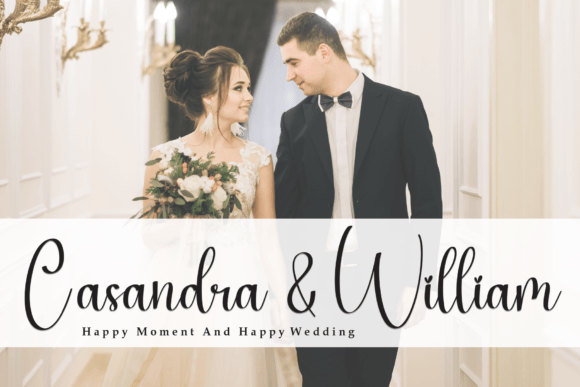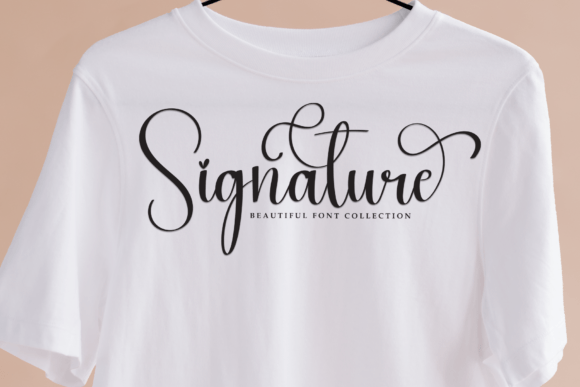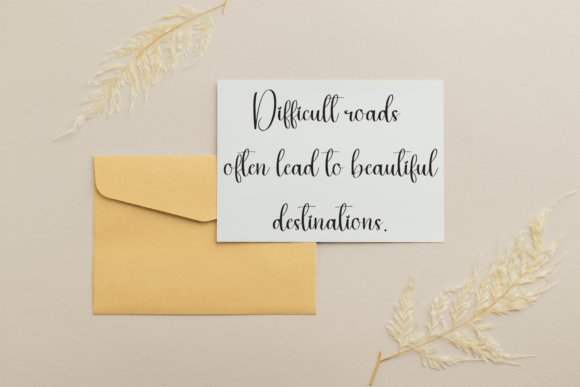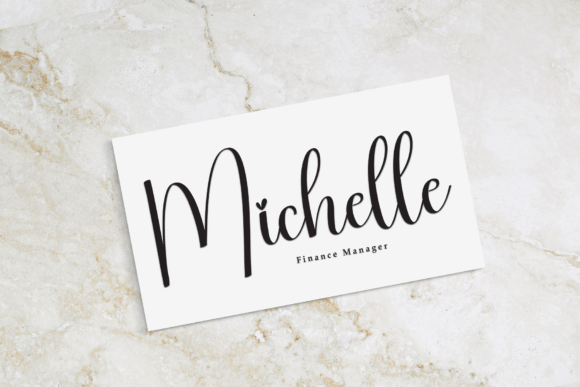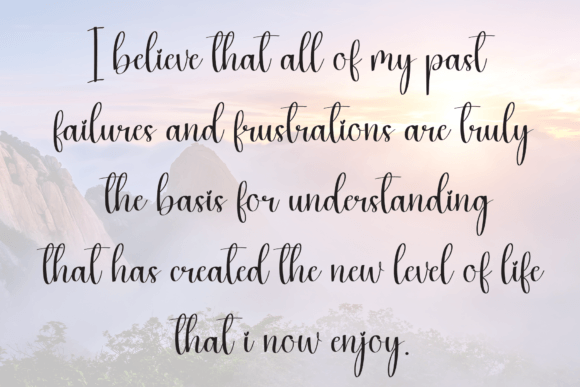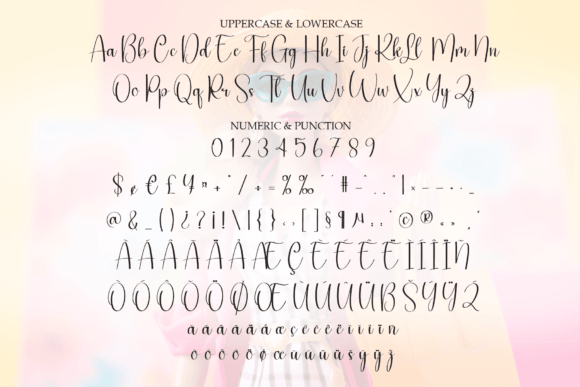
Unlock the Magic of the Barbie Font
Do you remember the excitement of getting your first art set as a child? The thrill of creating something entirely new and watching it come to life? For many of us, that spark of creativity never fades. Today, we’re excited to share a tool that will help you unleash your inner artist and take your designs to the next level – the Barbie Font.
This special font is designed for creatives who crave the perfect balance of style and sophistication. With its elegant, cursive script, the Barbie Font is perfect for adding a touch of whimsy to your projects. Whether you’re a seasoned designer or just starting out, this versatile font will help you elevate your work and make a lasting impression. From wedding invitations to social media logos, the Barbie Font is the perfect addition to any design project.
Barbie Font Key Features
- Unique Characteristics: The Barbie Font features a distinctive, cursive script style with rounded letters and a playful, childlike feel, making it ideal for use in children’s products and branding.
Barbie Font Review
The Barbie Font is a font that captures the essence of the iconic fashion doll. Overall, it’s a solid choice for projects that need a touch of whimsy and playfulness. Here are some of its strengths: ✨
- Customizability: The font offers a range of styles, from bold to script, giving users ample options for creative expression.
- Legibility: The font is clear and easy to read, making it suitable for a variety of applications, from titles to body text.
- Fun and playful vibe: The font perfectly captures the lighthearted, youthful essence of the Barbie brand.
However, the font also has some limitations: ⚠️
- Limited versatility: While the font is great for projects with a feminine or youthful tone, it may not be the best choice for more serious or professional applications.
- Overuse risk: The font’s popularity and distinctiveness may make it feel overused or clichéd if applied too liberally.
Overall, I think the Barbie Font is a great addition to any designer’s toolkit. With its versatility, legibility, and playful vibe, it’s sure to bring a smile to users’ faces. Just be mindful of its limitations to avoid overusing it.
Tips for Getting the Most Out of the Barbie Font
For the best results, use the Barbie Font for playful and whimsical designs. It pairs well with bright colors and bold graphics. To add an extra touch, use the font in combination with graphics or illustrations that feature Barbie dolls or other feminine elements.
The Barbie Font is commonly used for:
1. Children’s party invitations and decorations
2. Fashion and beauty advertising
3. Women’s lifestyle and wellness blogs
4. Playful and whimsical social media graphics
Alternatives to Barbie Font for Designers
Avenir is a geometric sans-serif typeface designed by Adrian Frutiger in 1988. It is known for its clean and modern look, making it suitable for corporate branding, advertising, and editorial design. Avenir is a versatile font that can be used in various contexts, from formal to informal settings. Compared to Barbie Font, Avenir is more sophisticated and professional, with a more extensive character set and better legibility.
Didot is a classic serif typeface designed by Firmin Didot in 1784. It is characterized by its elegant and refined look, making it suitable for luxury branding, high-end advertising, and fashion design. Didot is a timeless font that can add a touch of sophistication to any design. Compared to Barbie Font, Didot is more elegant and refined, with a more traditional and classic feel.